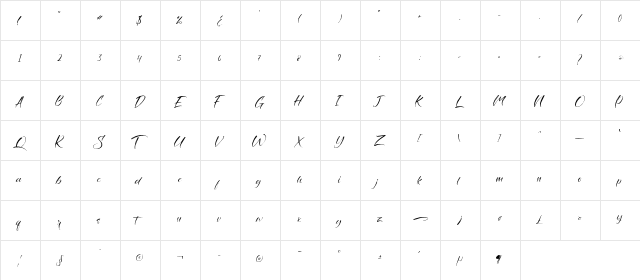
Savage Brush Regular
Design Context for Savage Brush Typeface
Savage Brush flows with the natural rhythm of handwritten lettering, making it ideal for designs that call for warmth and personal expression.
Font Pairing: Combine Savage Brush with a simple geometric sans for maximum contrast — the tension between flowing curves and clean structure is a classic typographic pairing.
Pro Tip: Use Savage Brush for short runs of text — names, titles, or taglines. Extended body copy in script faces tires the eye quickly.